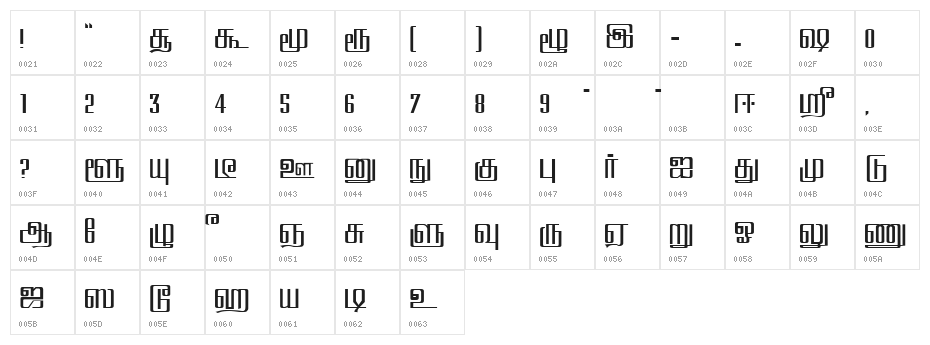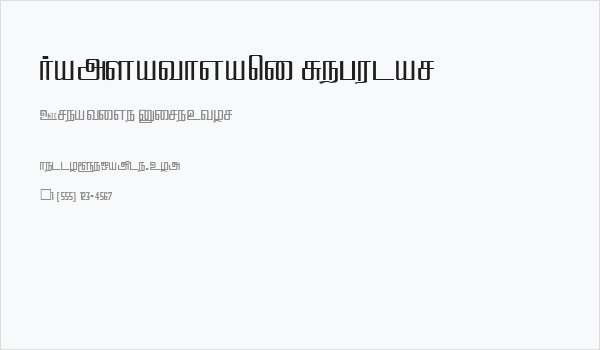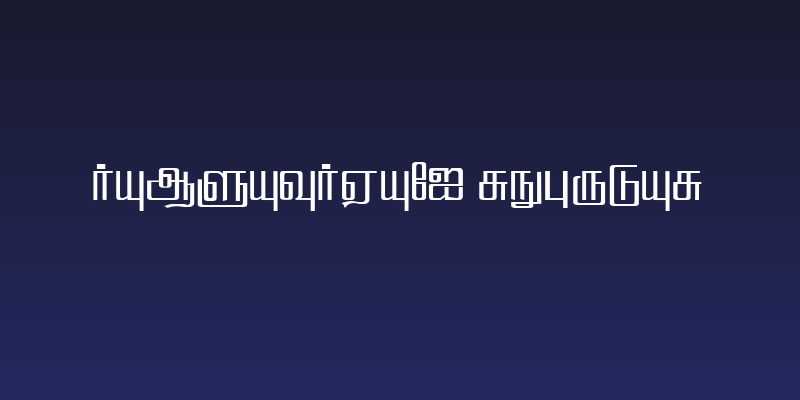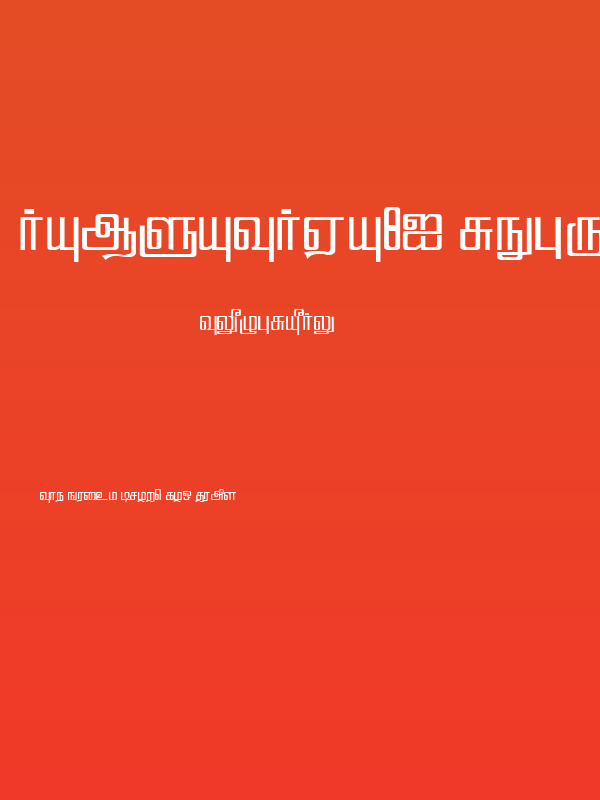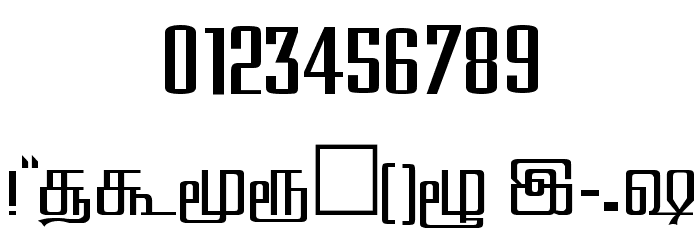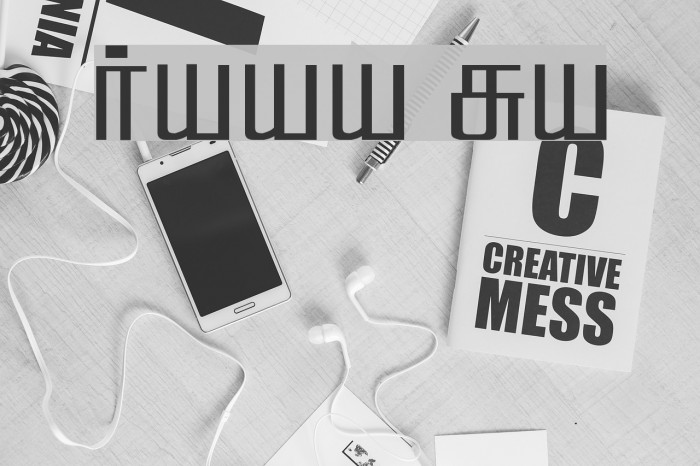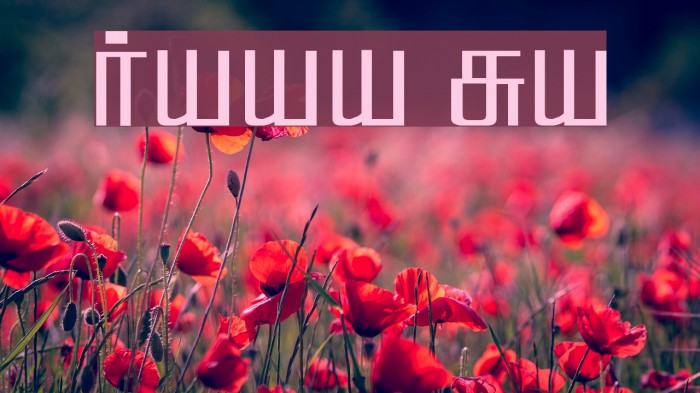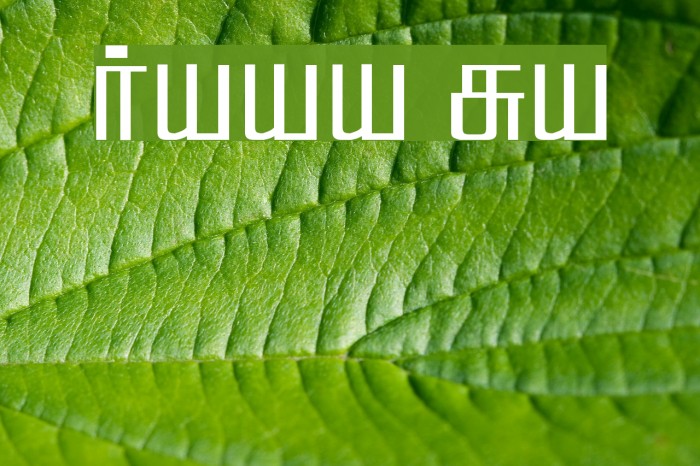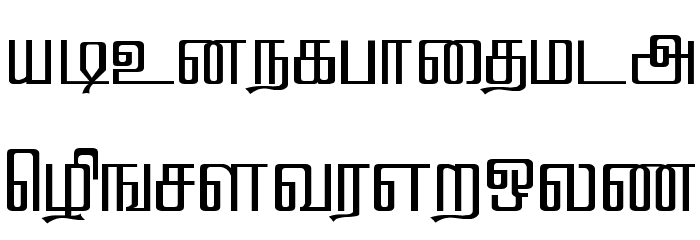
Hamsathvani Regular Font
Hamsathvani Regular Description
This font features a modern and structured design, characterized by its clean lines and geometric shapes. The characters are well-defined with a consistent stroke width, giving it a uniform appearance. The font maintains a balance between readability and style, making it suitable for various applications. Its design is both contemporary and versatile, allowing it to be used in a wide range of contexts. The numerals are clear and distinct, while the special characters are designed to complement the overall aesthetic. This font is ideal for projects that require a modern and professional look.